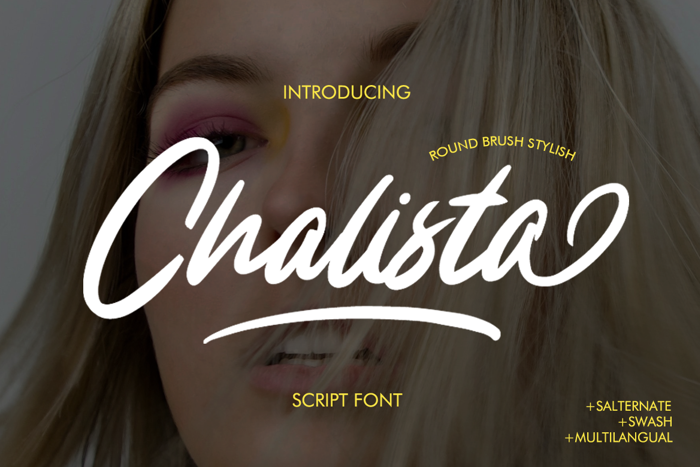
Chalista Font
Chalista Font a Beautiful rounded brush Calligraphy-style script with unique and comfortable curves with handwriting for use in various products such as fashion or in the field of photography and all product.